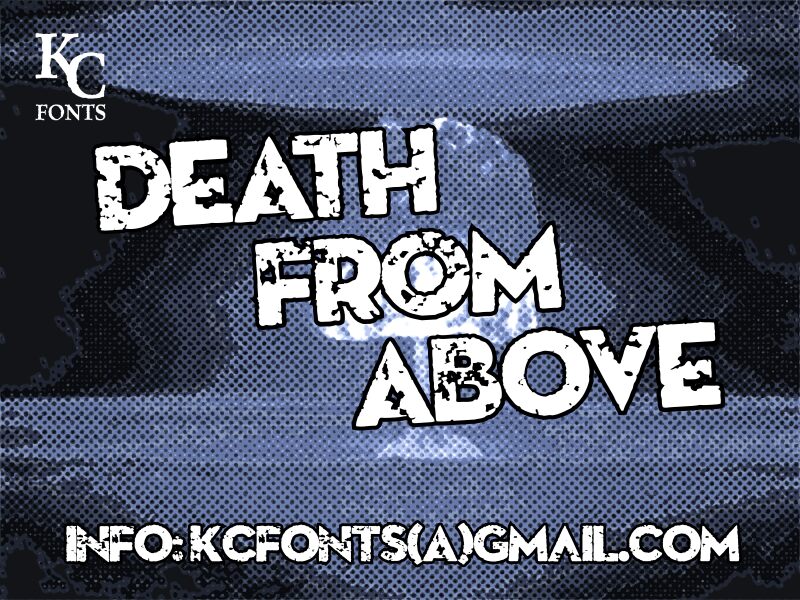
Death From Above by Kevin Christopher of KC Fonts is a free eroded display font with massive, tightly packed capitals and a battered industrial surface. Uneven edges, chipped interiors, and blunt proportions make the lettering look roughly stamped rather than carefully printed.
Concert posters are its clearest setting, where the dense silhouette and severe wear suit punk, metal, and noise imagery. The same damaged impact can shape album covers, streetwear graphics, and action-game title cards with the force of a photocopied gig flyer, tying each project to a raw underground genre.